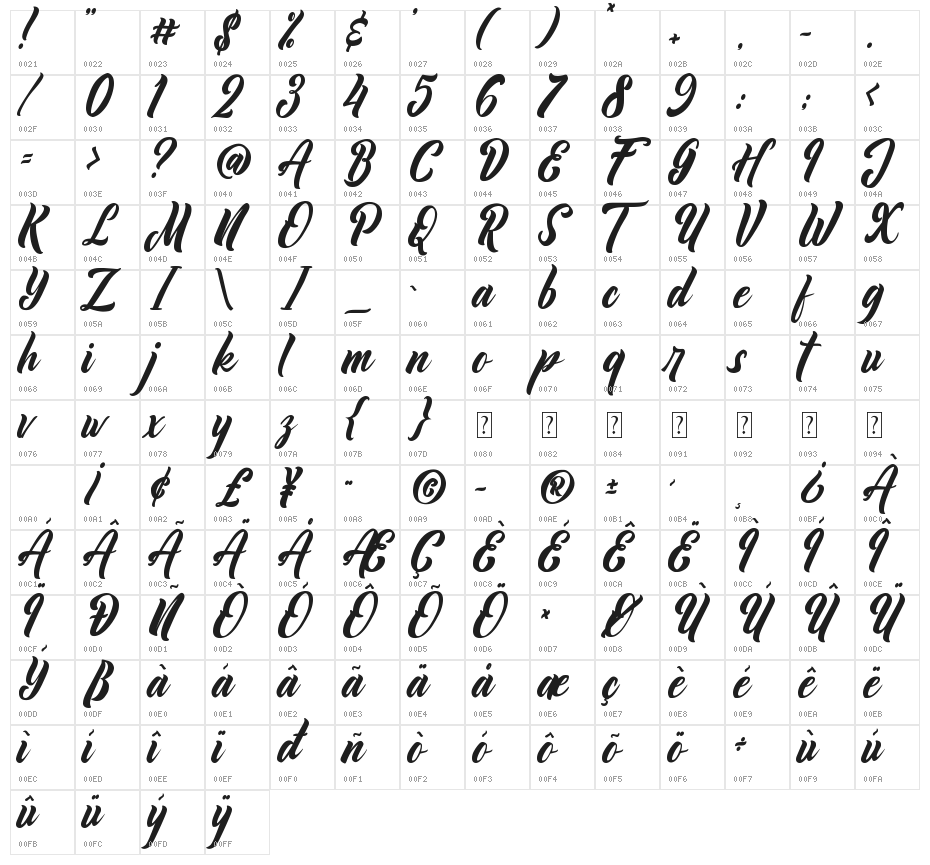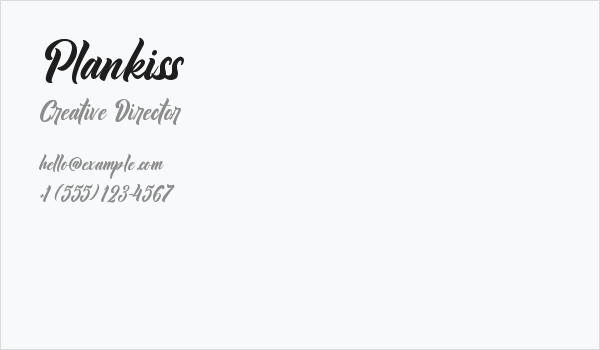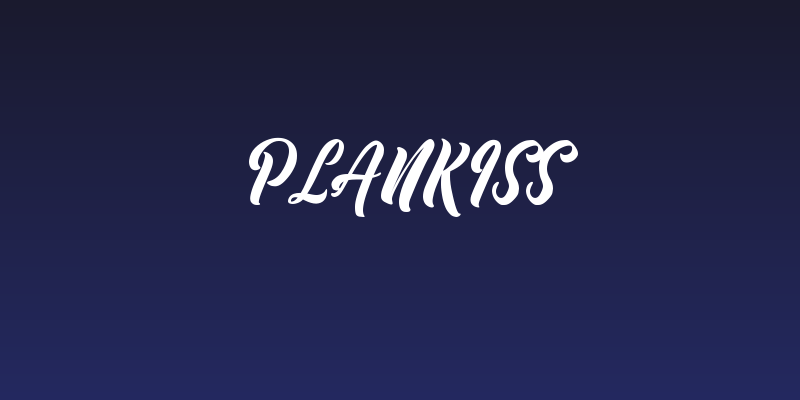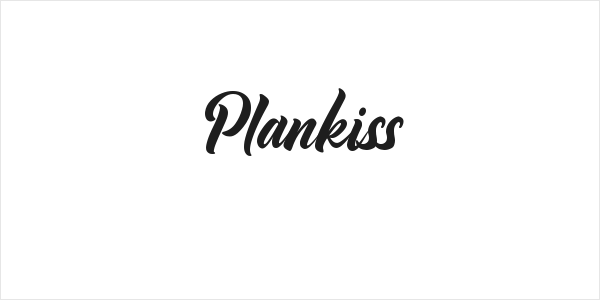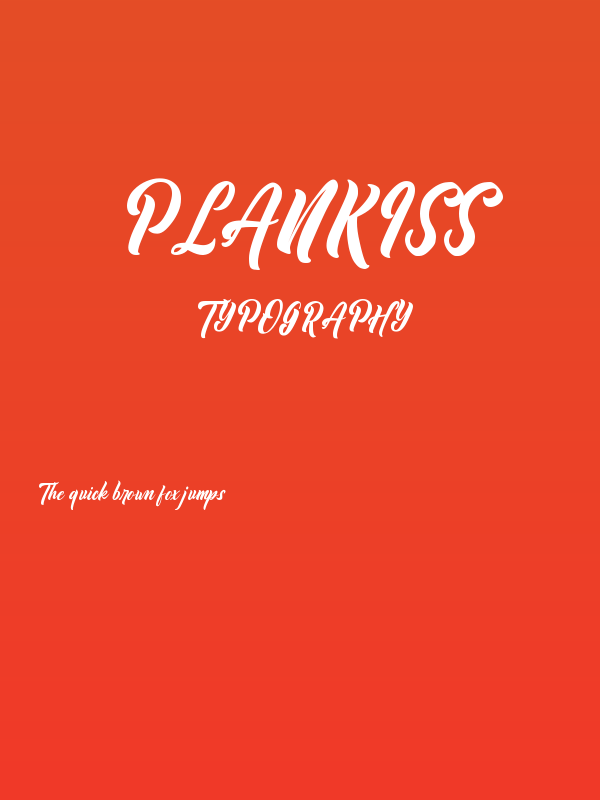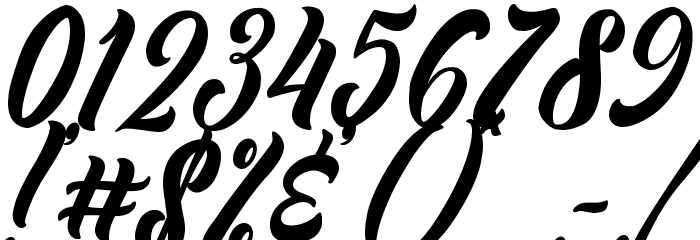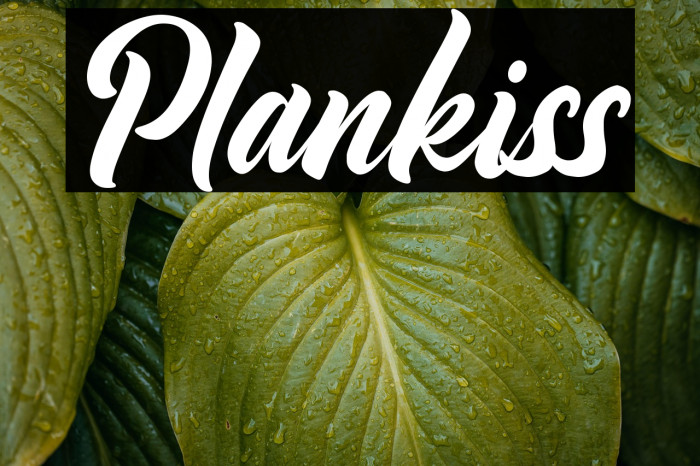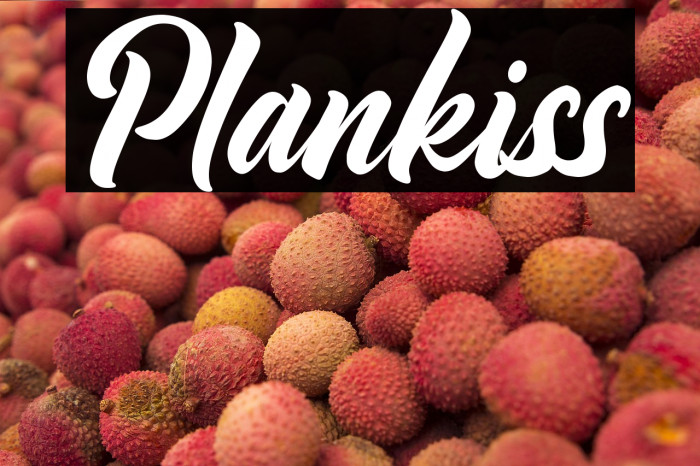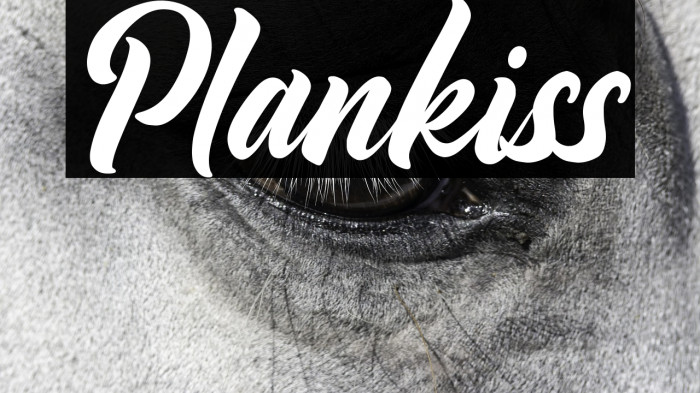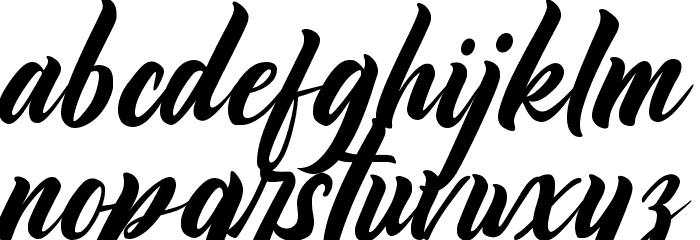
Plankiss Font
Plankiss Description
This font features a bold and expressive script style, characterized by its flowing, cursive letters that convey a sense of elegance and dynamism. The uppercase letters are particularly striking, with sweeping curves and dramatic flourishes that add a touch of sophistication. The lowercase letters maintain a consistent style, with smooth connections and a rhythmic flow that enhances readability. The numerals and special characters are designed to complement the overall aesthetic, ensuring a cohesive look across all text. This font is ideal for projects that require a personal, handwritten touch, such as invitations, branding, and creative designs.